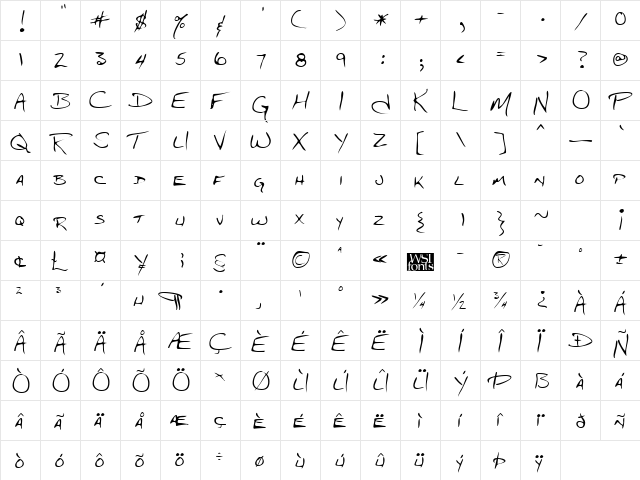
CartersHand Regular
Design Context for CartersHand Typeface
CartersHand flows with the natural rhythm of handwritten lettering, making it ideal for designs that call for warmth and personal expression.
Font Pairing: Combine CartersHand with a simple geometric sans for maximum contrast — the tension between flowing curves and clean structure is a classic typographic pairing.
Pro Tip: Pair CartersHand with a clean sans-serif for supporting text. The contrast between fluid script and geometric structure creates an elegant typographic hierarchy.